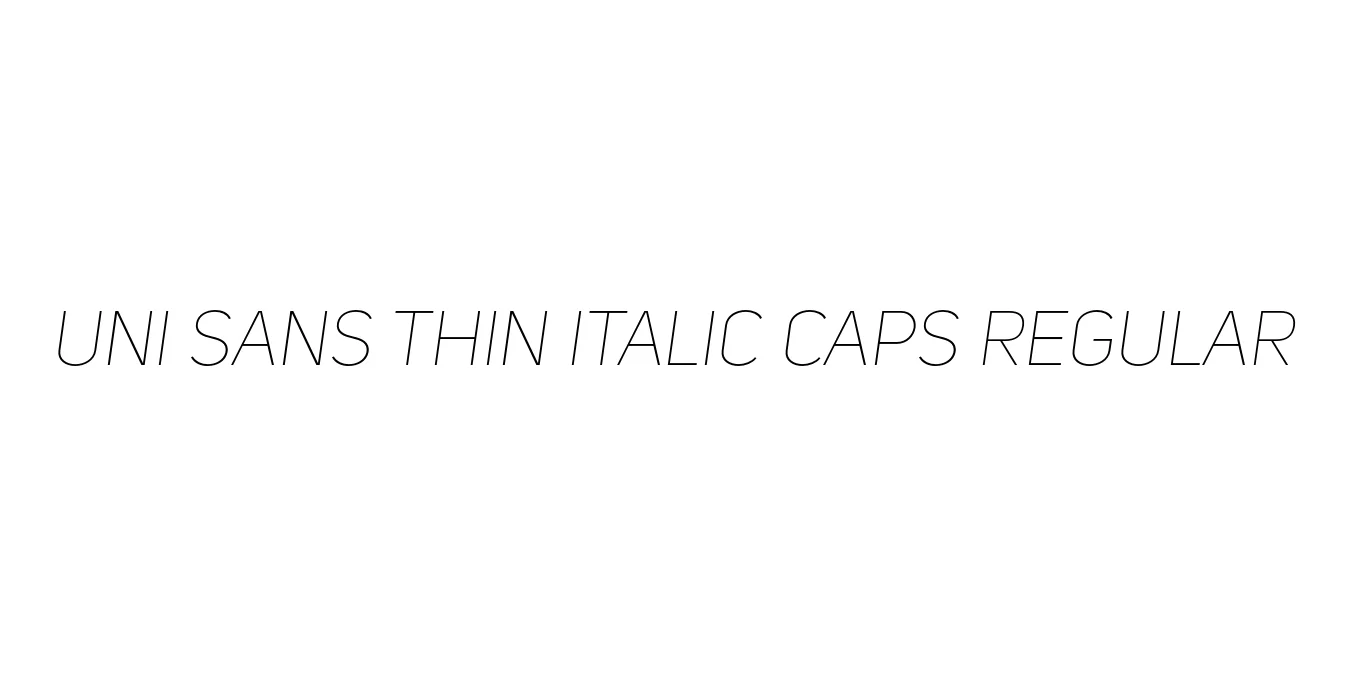
Uni Sans Thin Italic CAPS Regular
Designed by Svetoslav Simov
Uni Sans Thin Italic CAPS Regular is a specialized variant of the highly acclaimed Uni Sans superfamily, designed by Svetoslav Simov for Fontfabric. This typeface is built upon a strong geometric foundation, characterized by its clean lines and perfectly balanced proportions. The 'Thin Italic CAPS' version specifically emphasizes a lightweight, slanted, all-uppercase aesthetic that brings a sense of modern elegance and high-speed sophistication to any typographic composition.
The font is part of the broader Uni Sans family which is widely recognized for its high legibility across both digital and print media. This particular thin weight is exceptionally well-suited for high-impact display purposes where a delicate yet professional touch is required. Its architectural structure and minimalist approach allow it to integrate seamlessly into contemporary design projects, from high-end editorial layouts to minimalist brand identities.
Uni Sans Thin Italic CAPS Regular Best Uses
Ideal for creating sleek, minimalist logos and professional corporate identities.
Perfect for high-fashion magazine headlines and sophisticated pull quotes.
Great for hero section typography that requires a light, airy, and modern feel.
Excellent for avant-garde posters and clean typographic layouts.